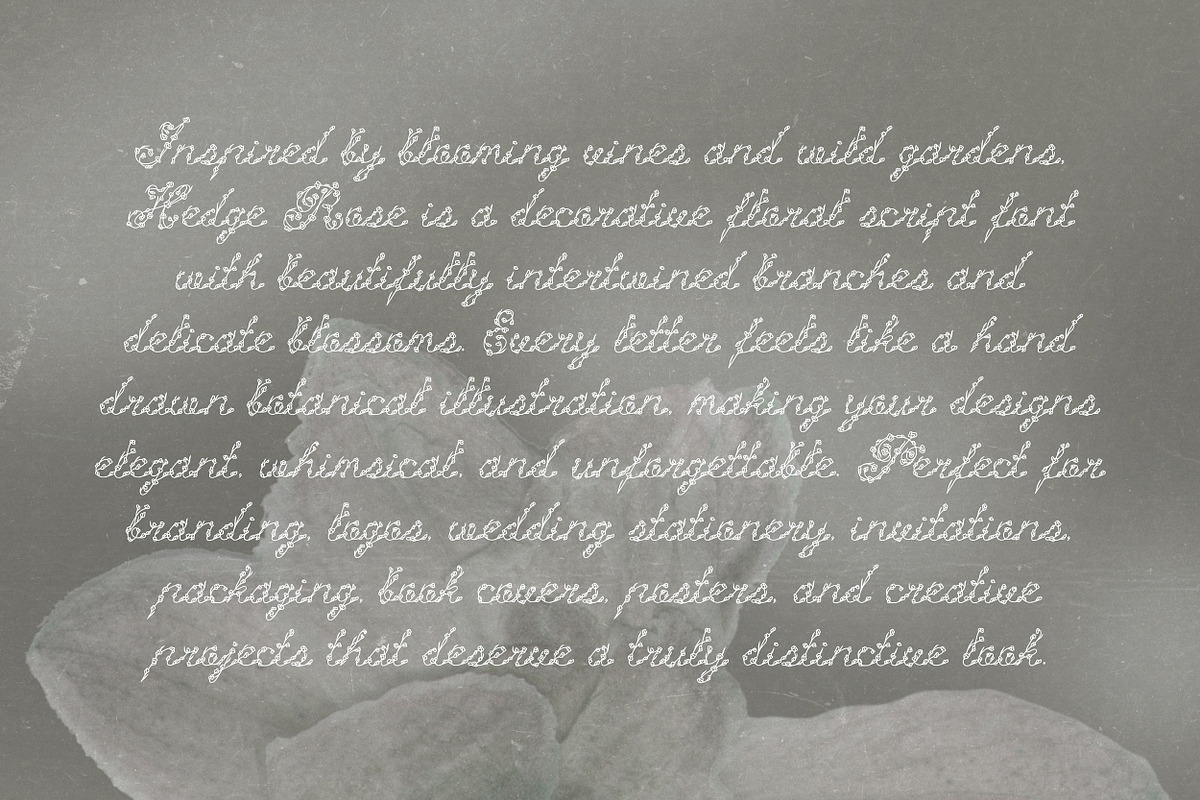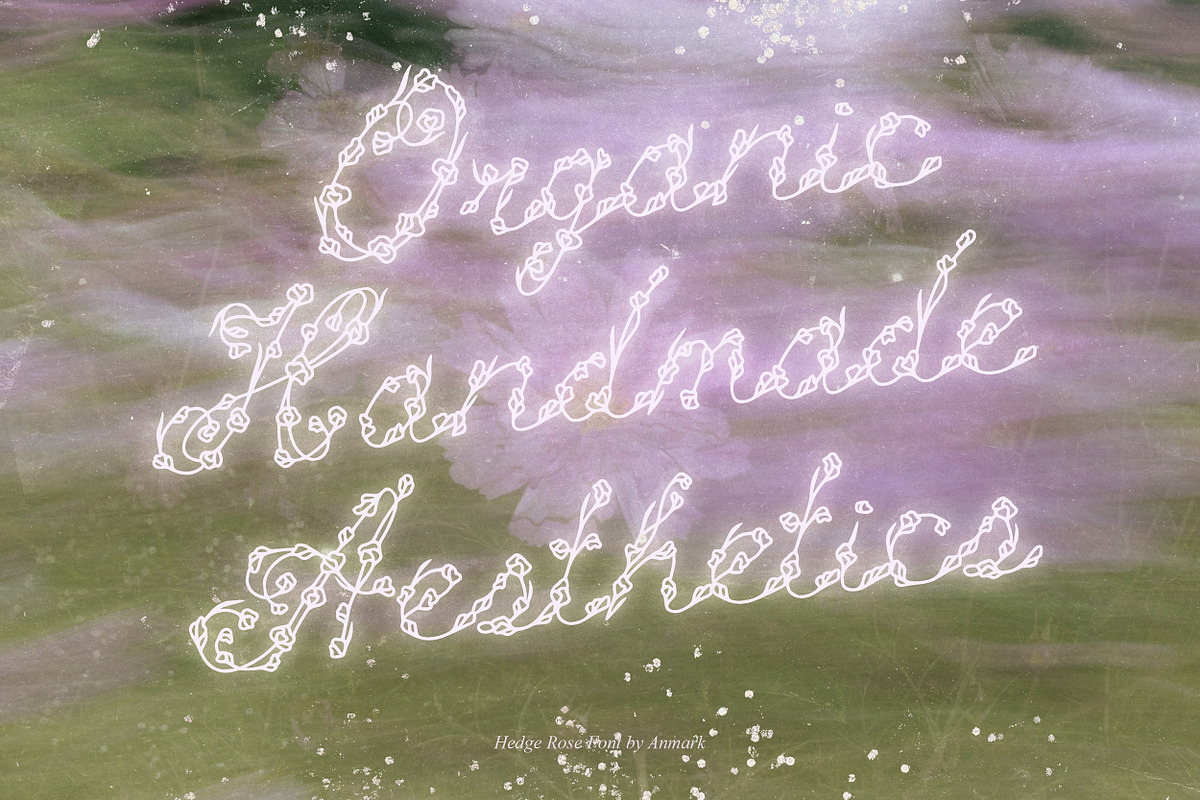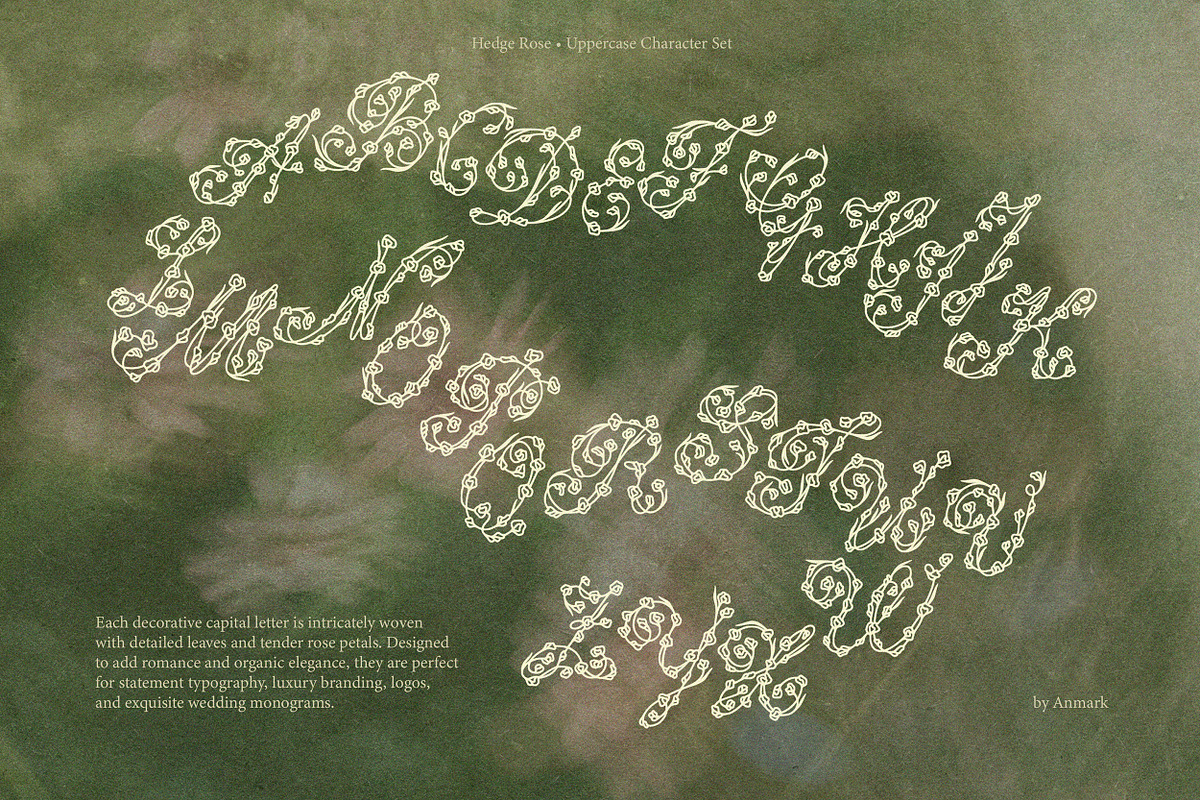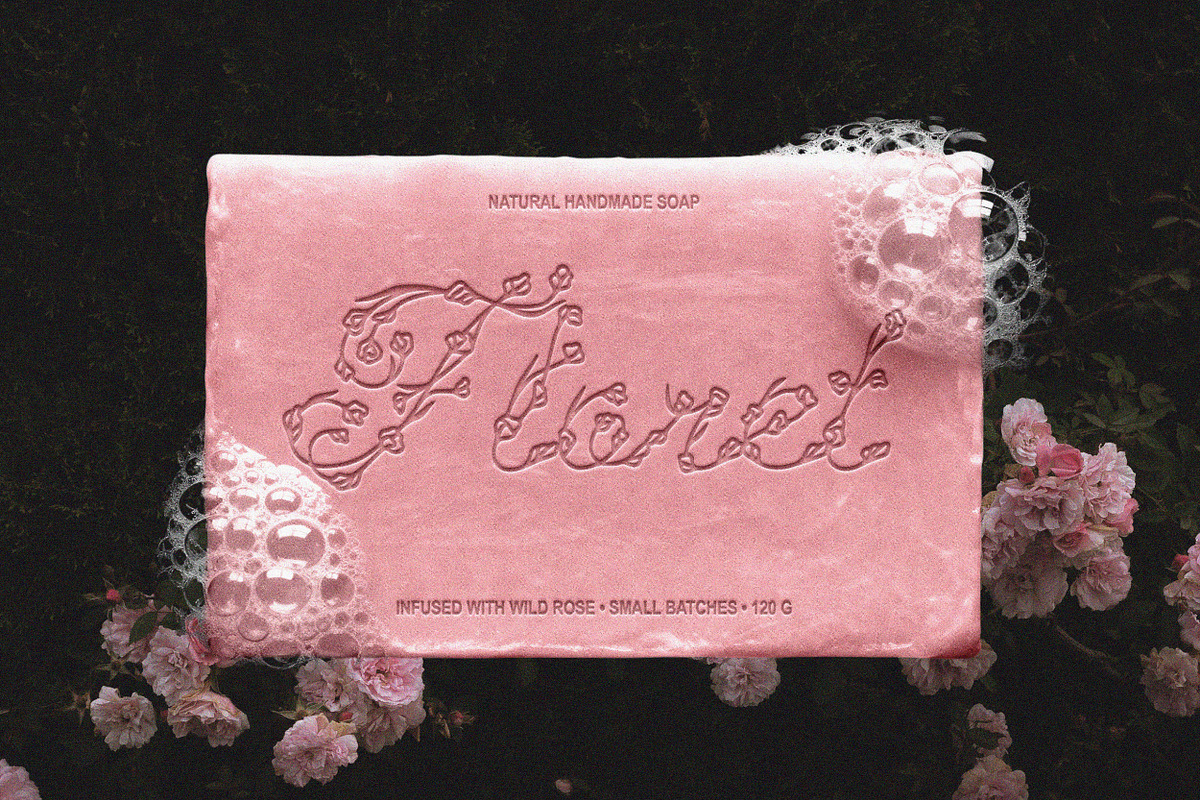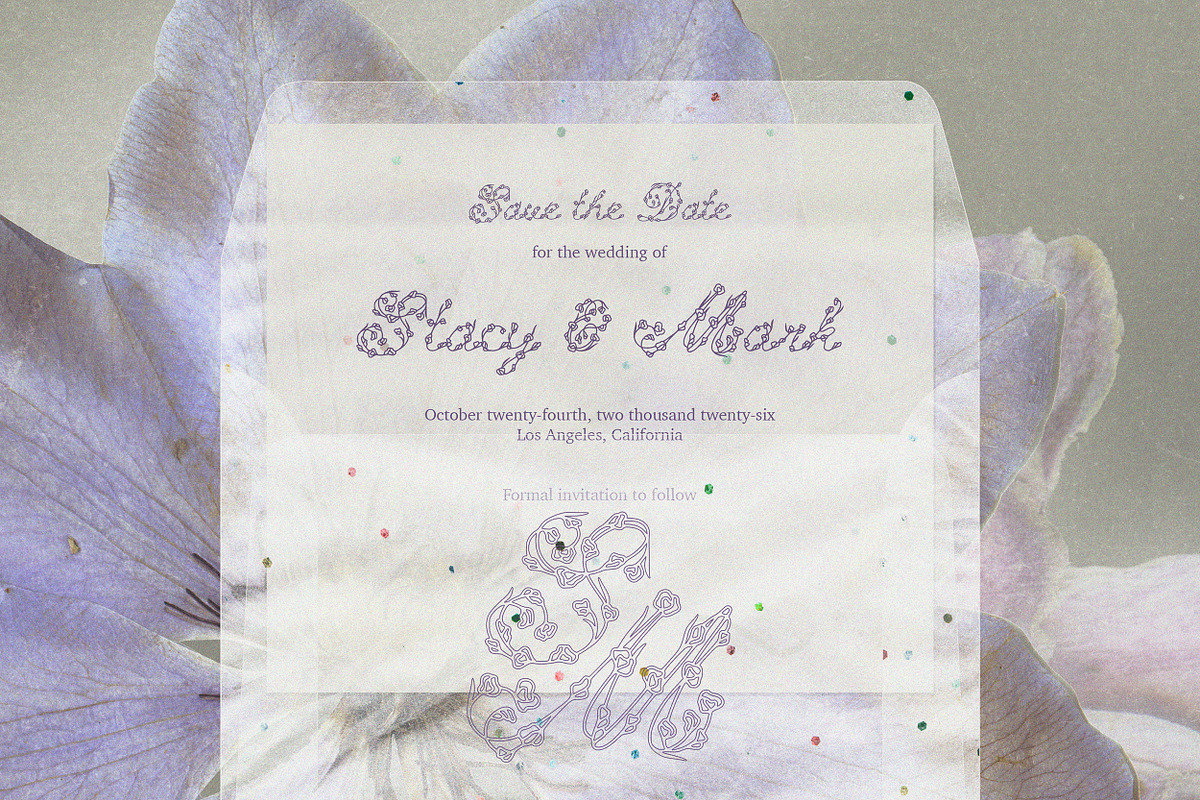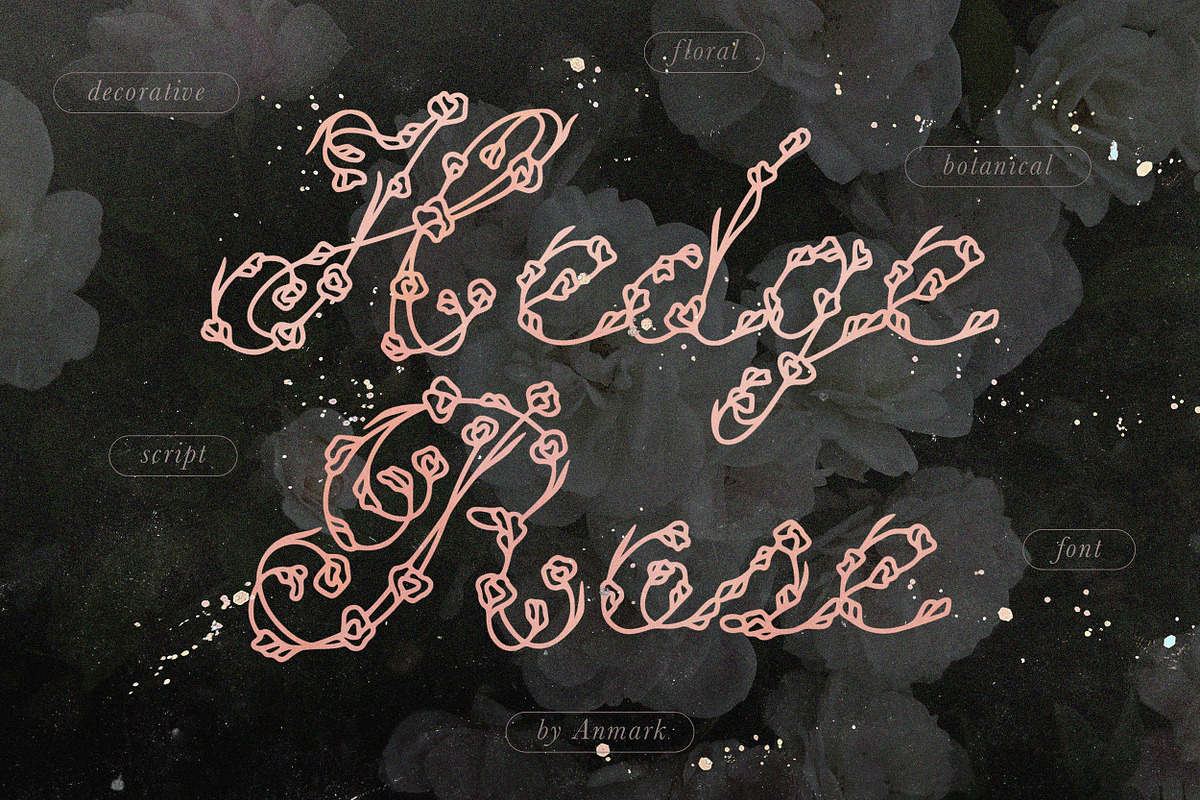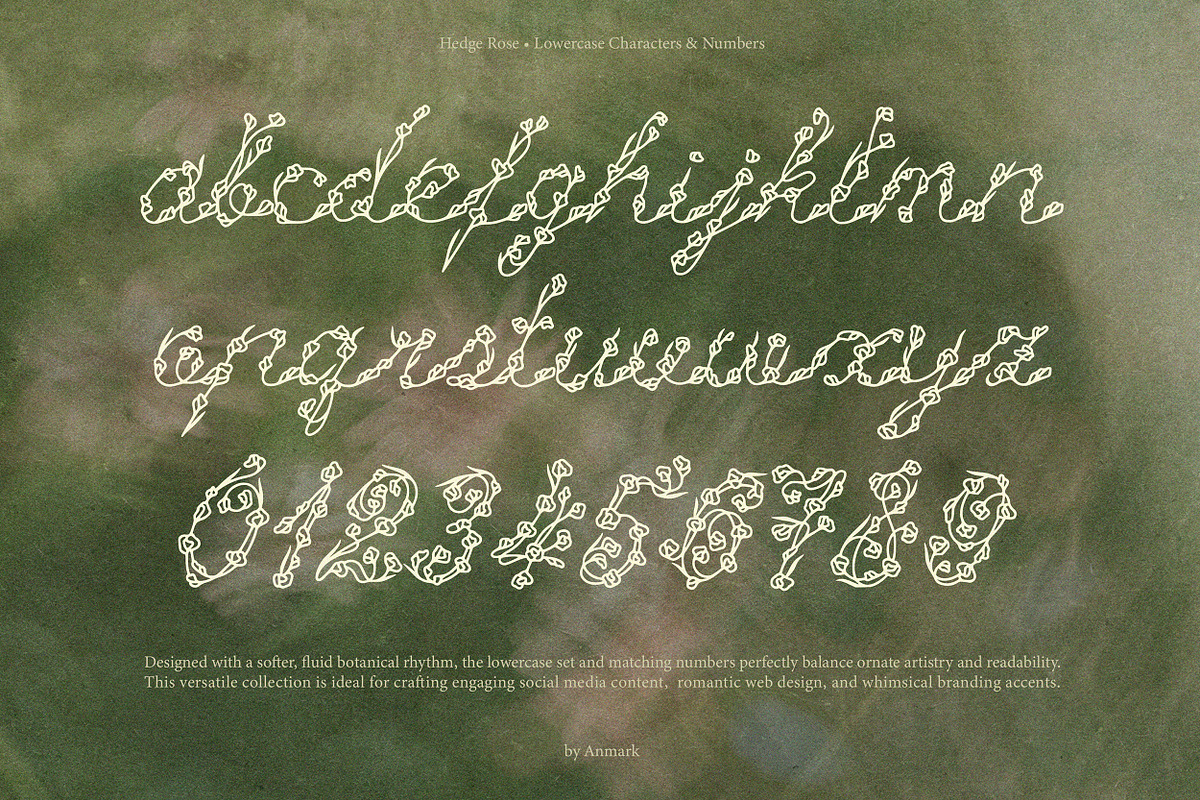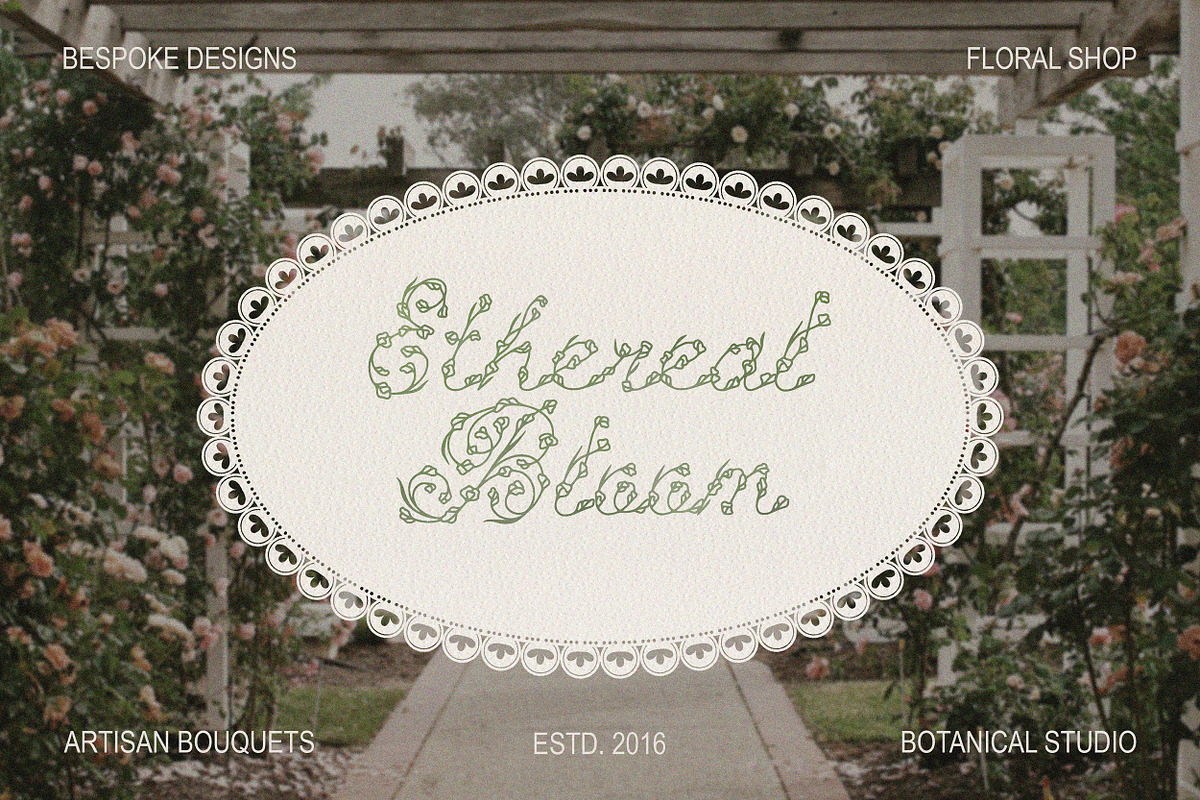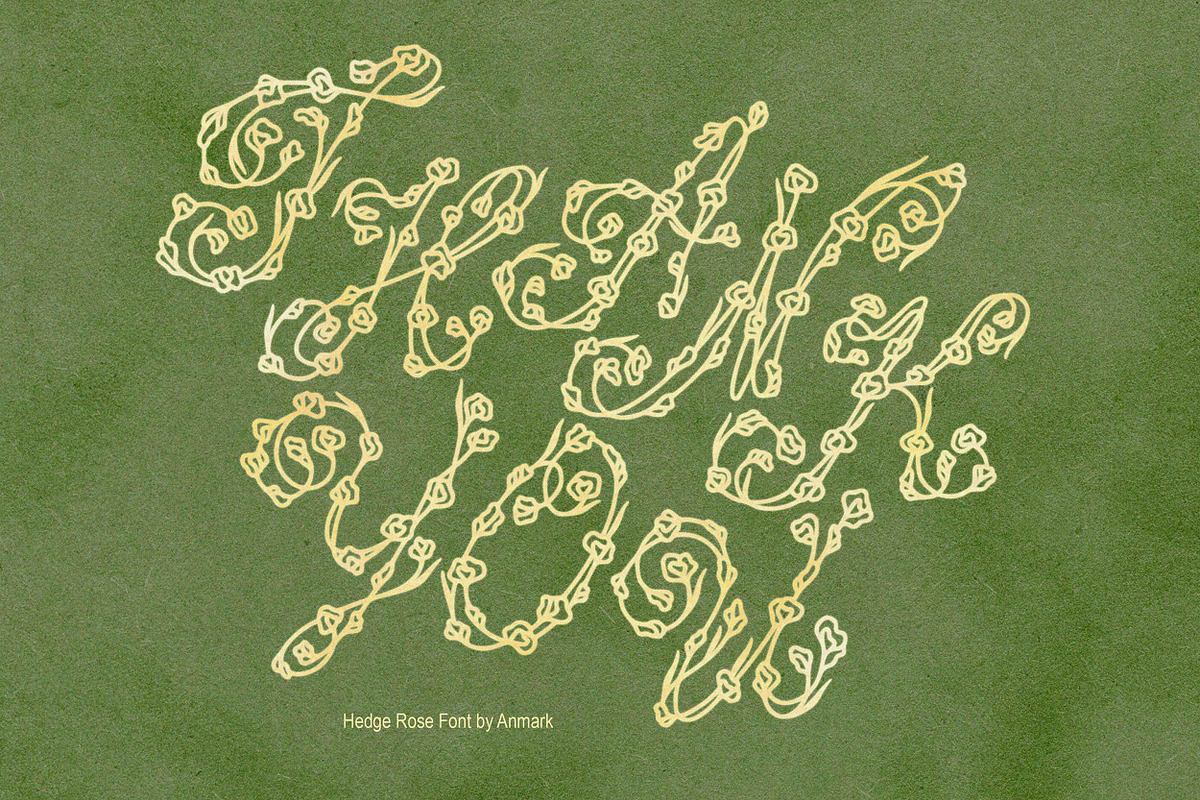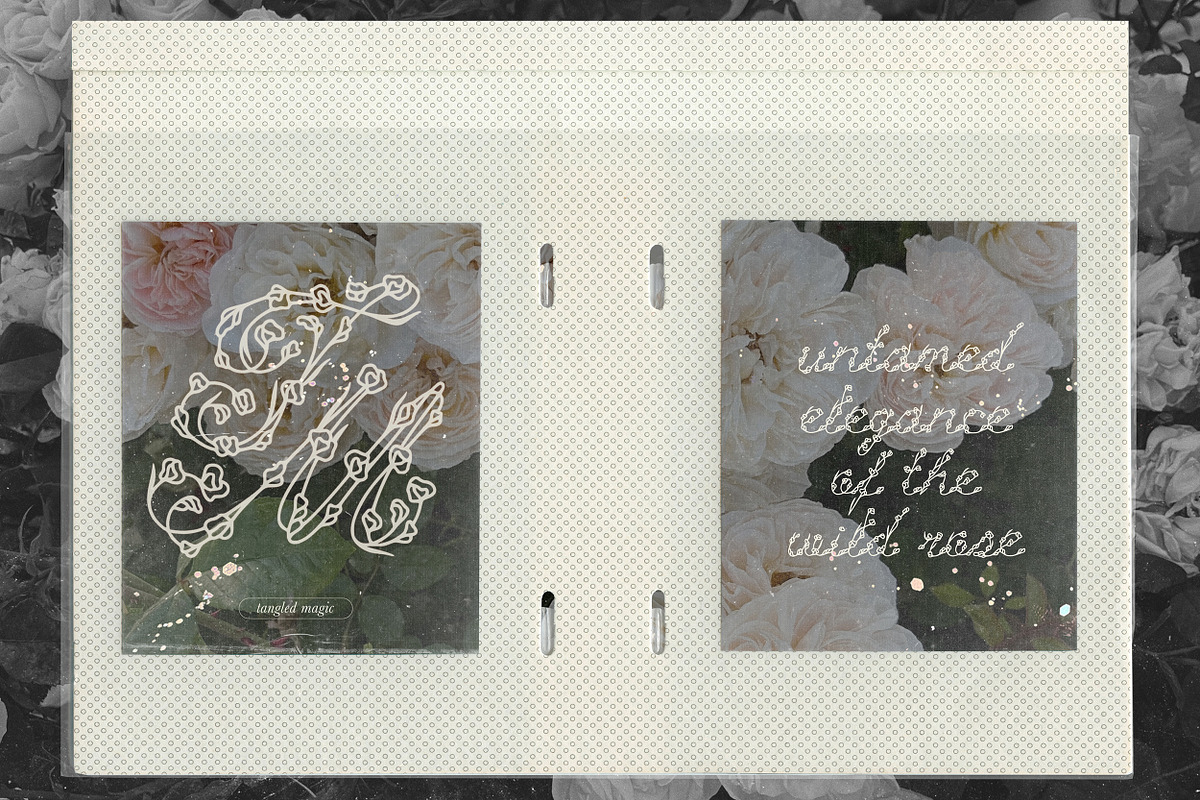
Hedge Rose Decorative Floral Script
Hedge Rose is a decorative floral script font inspired by blooming meadows, botanical illustrations, and the quiet beauty of flourishing gardens. Every letter is delicately formed from graceful stems, tender blossoms, and leafy vines, creating an alphabet that feels naturally grown rather than simply drawn.
Its intricate floral details and organic flowing lines bring a soft, elegant character to every word. Inspired by wildflowers, fresh spring blooms, and lush botanical landscapes, Hedge Rose celebrates the beauty of nature with a handcrafted artistic style that feels both timeless and enchanting.
Hedge Rose is perfect for logos, branding, monograms, wedding stationery, invitations, greeting cards, packaging, beauty and floral brands, book covers, posters, social media graphics, boutique products, handmade businesses, and creative projects that call for an elegant botanical aesthetic.